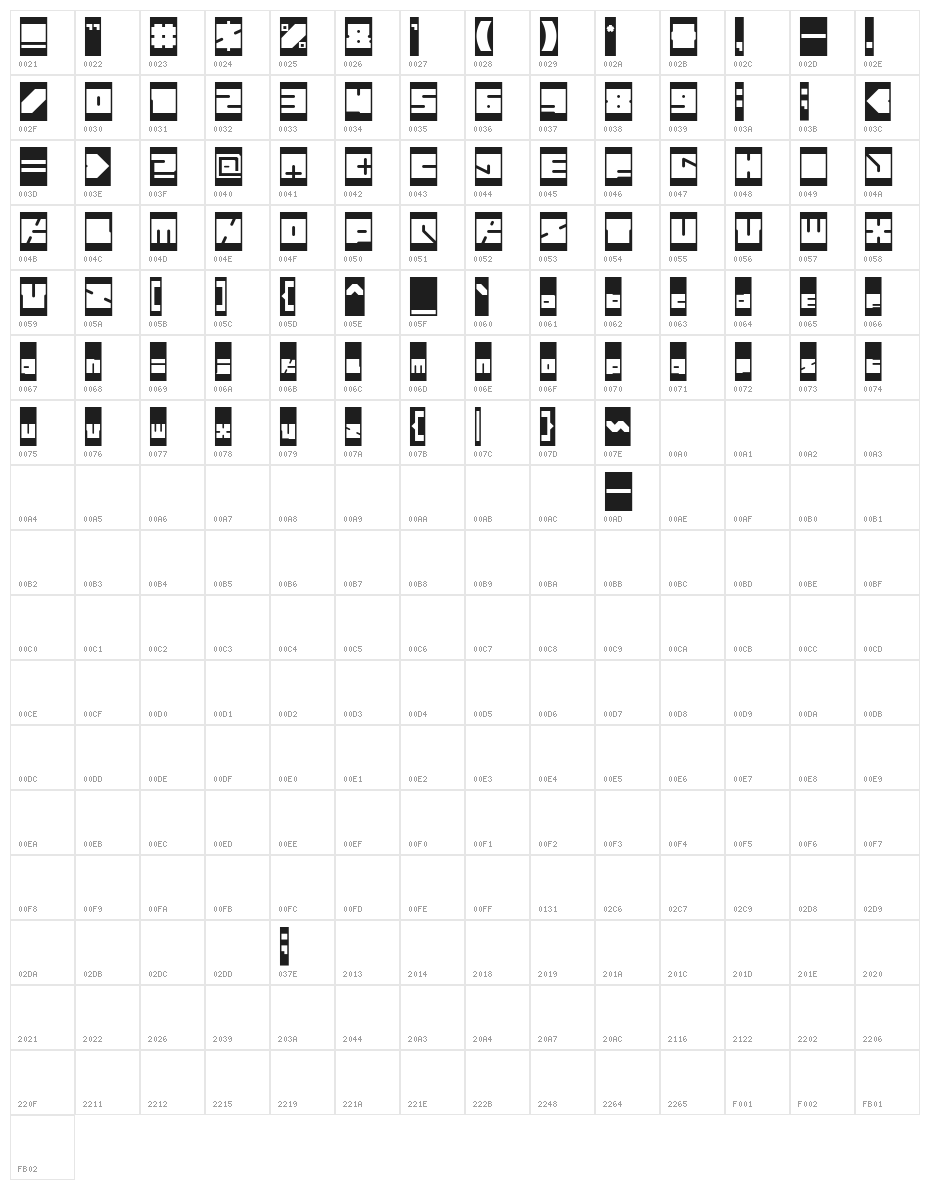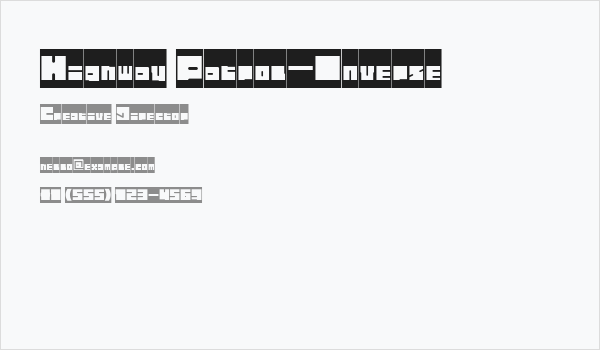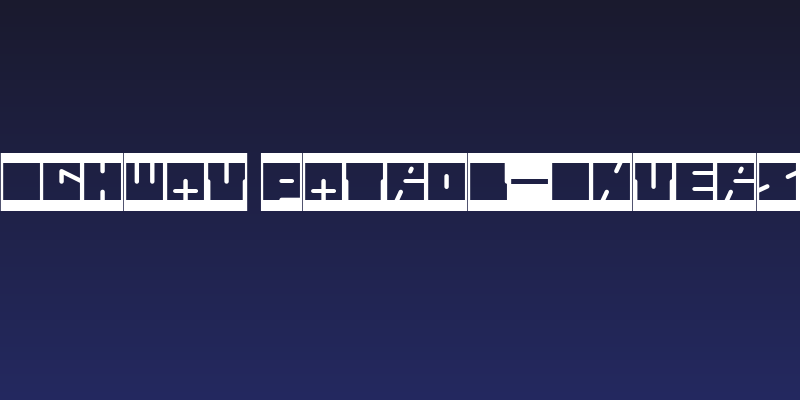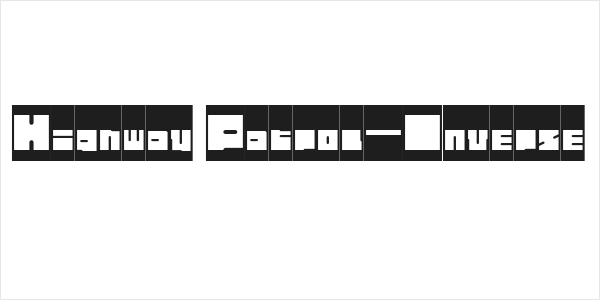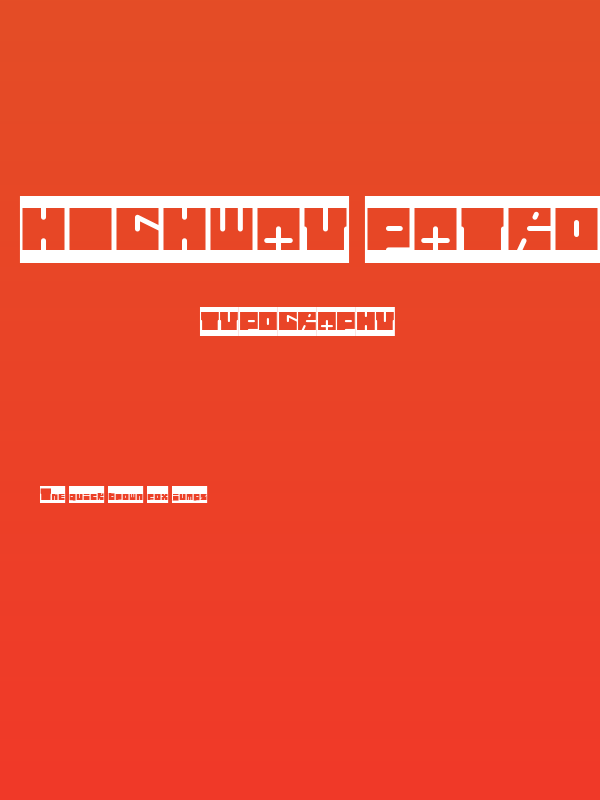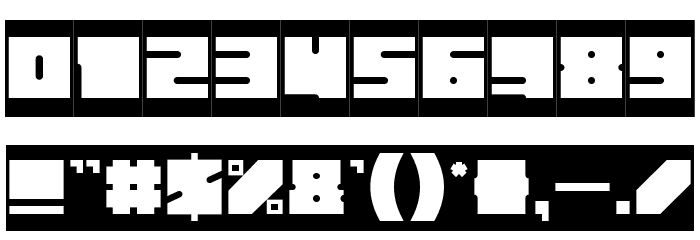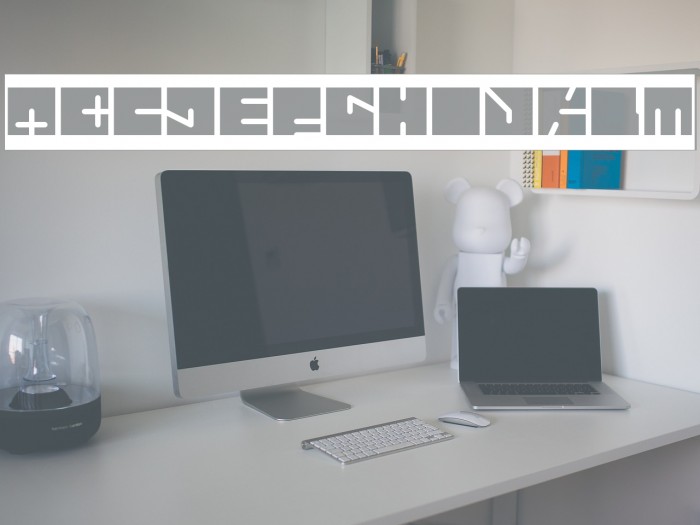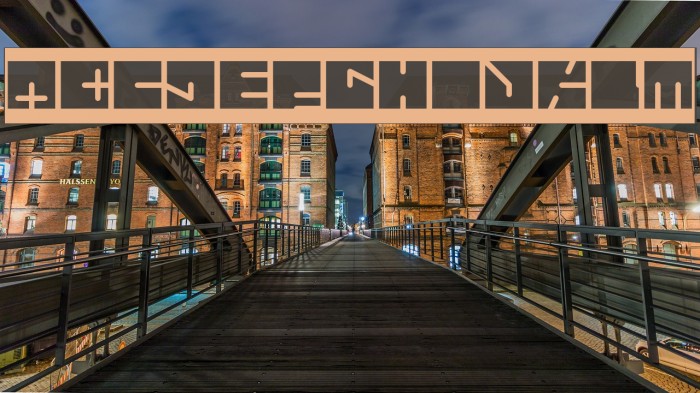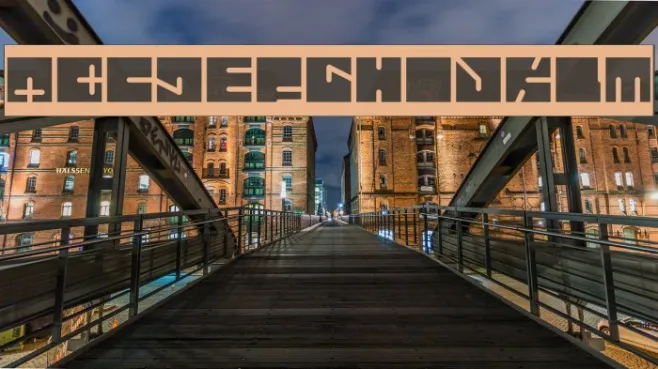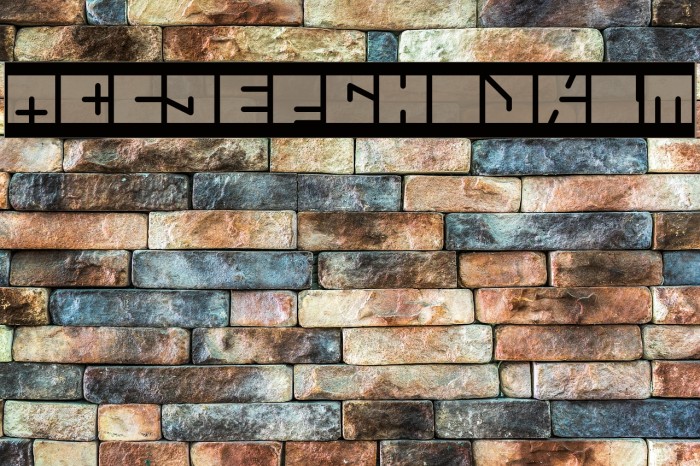
Highway Patrol-Inverse Font
Highway Patrol-Inverse Description
This font features a bold, geometric design with a strong emphasis on angular shapes and sharp edges. Each character is constructed with a blocky, stencil-like appearance, creating a futuristic and industrial aesthetic. The letters are uniformly wide, contributing to a cohesive and structured look. The font's unique style is characterized by its high contrast between the thick, solid strokes and the negative space, which is cleverly integrated into the design. This font is particularly eye-catching and commands attention, making it suitable for impactful visual statements.
| Overall Style | Modern, Industrial |
| Proposed Projects | Ideal for branding, posters, signage, and any project requiring a modern, industrial look. |